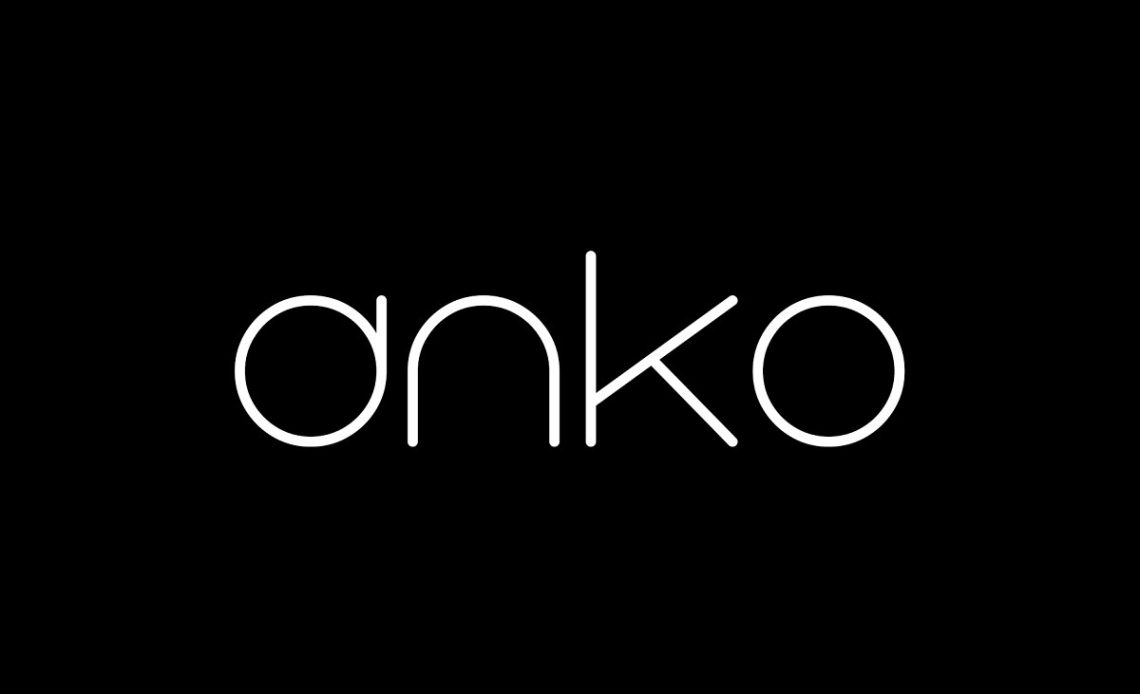
Introducing Anko - Joyful Rounded Font, the best font for funny videos! Designed by the talented Alberto Fontense, this minimalistic rounded font is perfect for fashion and entertainment.
With its eye-catching curves and playful personality, Anko will instantly add a touch of joy to your creative projects. Its unique character sets include basic Latin, numbers & symbols, Latin-1 supplement, and Latin extended-a, ensuring that you have all the resources you need to bring your vision to life.
Whether you're creating videos for social media or designing branding materials, Anko is the perfect choice for any project that requires a fun and friendly touch. Its versatility makes it ideal for a wide range of applications, from product packaging to website design.